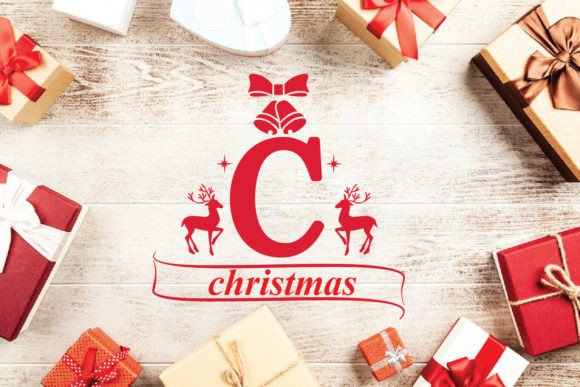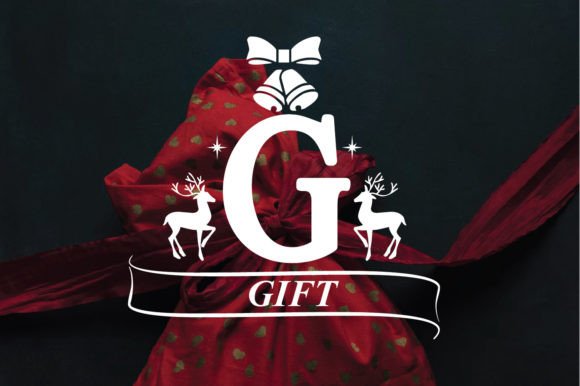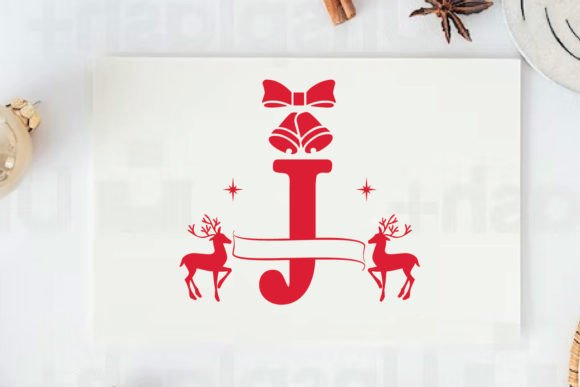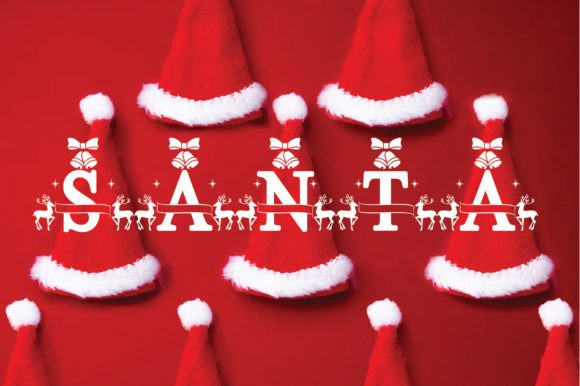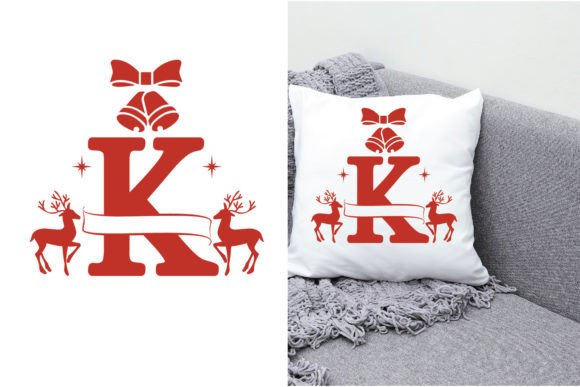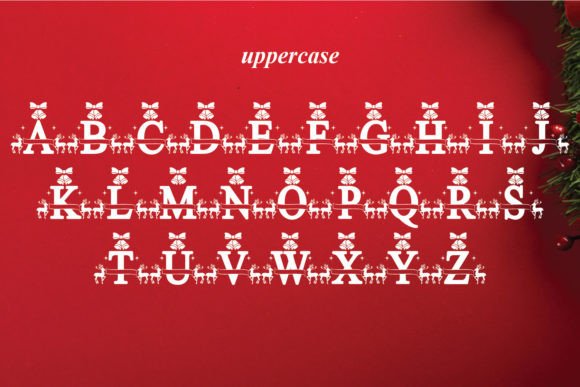
The Magic of Deer Bell Font: A Festive Christmas Decorative Font
Ah, the holiday season is upon us, and as designers, crafters, and creative hobbyists, we’re gearing up to create some amazing Christmas-themed projects. I still remember the year I was working on a Christmas card design for a client, and I just couldn’t find the perfect font to capture the festive spirit. The client wanted something cute, playful, and reminiscent of traditional Christmas decorations. That’s when I stumbled upon the Deer Bell font, and it instantly became my go-to for all things merry and bright.
An Honest Review of Deer Bell Font
- 🎄 The Deer Bell font is a monogram font with a festive look that’s perfect for Christmas designs, shirts, crafts, farmhouse decor, craft projects, and more.
- ✅ It’s incredibly versatile and can be used for a wide range of creative projects, from holiday cards to DIY decorations.
- 💕 The font has a cute, playful vibe that’s sure to bring a smile to anyone’s face.
- 👍 The font is well-designed, with crisp lines and a clear, readable style that’s perfect for both digital and print projects.
While I absolutely love the Deer Bell font, there are a few minor quirks to be aware of. For example, the font may not be suitable for very small text sizes, as some of the details may get lost. Additionally, some users may find the font a bit limited in terms of stylistic alternates, but overall, it’s a minor trade-off for the font’s many benefits.
The Story Behind Deer Bell Font
The Deer Bell font was designed by a talented type designer who wanted to capture the magic and wonder of the holiday season. Inspired by traditional Christmas decorations and the beauty of nature, the font features a unique blend of modern and vintage elements. Whether you’re a designer, crafter, or creative hobbyist, the Deer Bell font is sure to bring a touch of festive cheer to your projects.
A: Deer Bell font is perfect for Christmas designs, shirts, crafts, farmhouse decor, craft projects, and more.